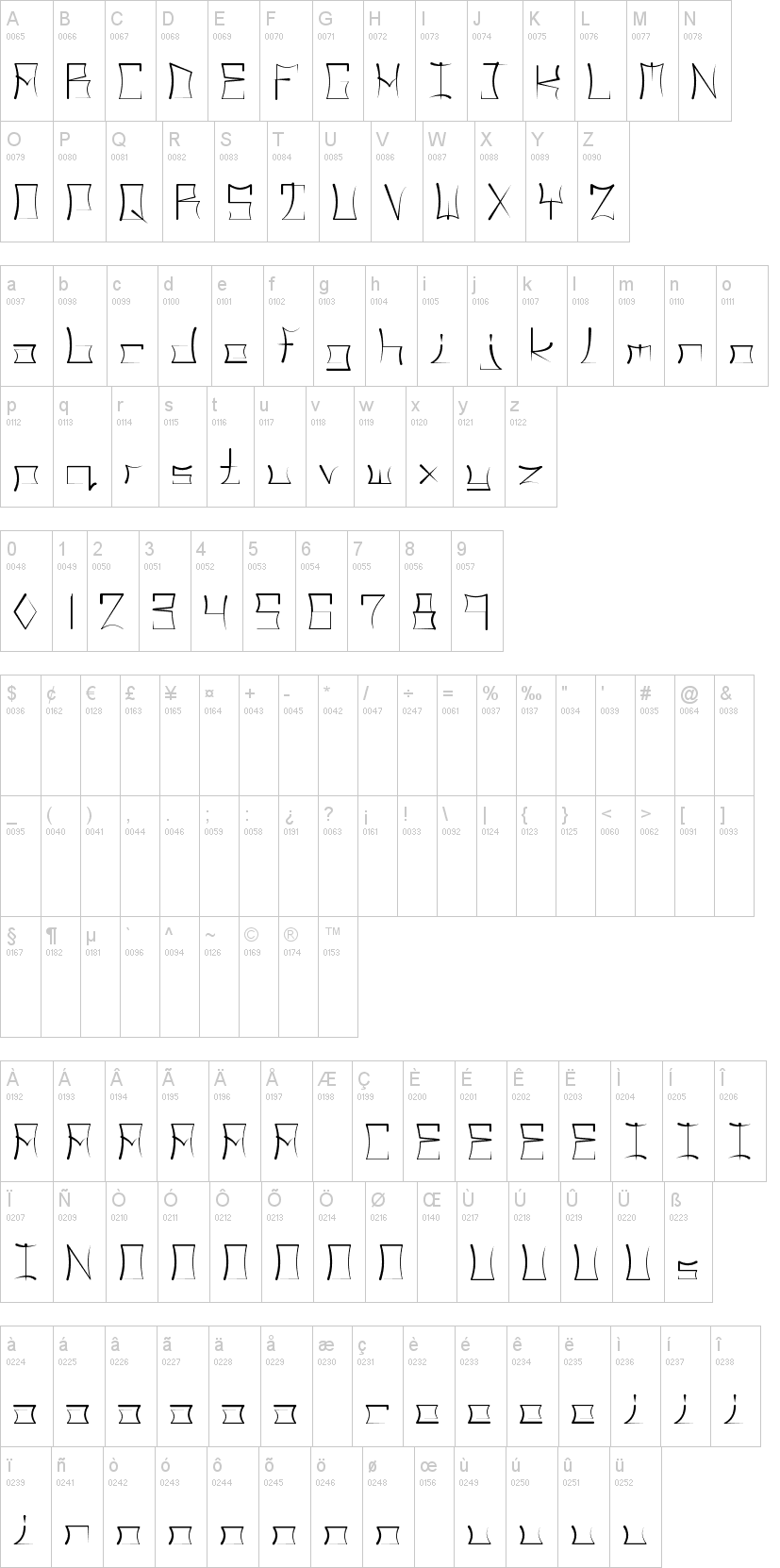
Note of the authorAn inspiration from my own art and painting style. A heavy influence of Chinese and Japanese calligraphy, with a blend of Mike Giant and cholo-graffiti style lettering. Check out more of my influences and works at designbydonald.com